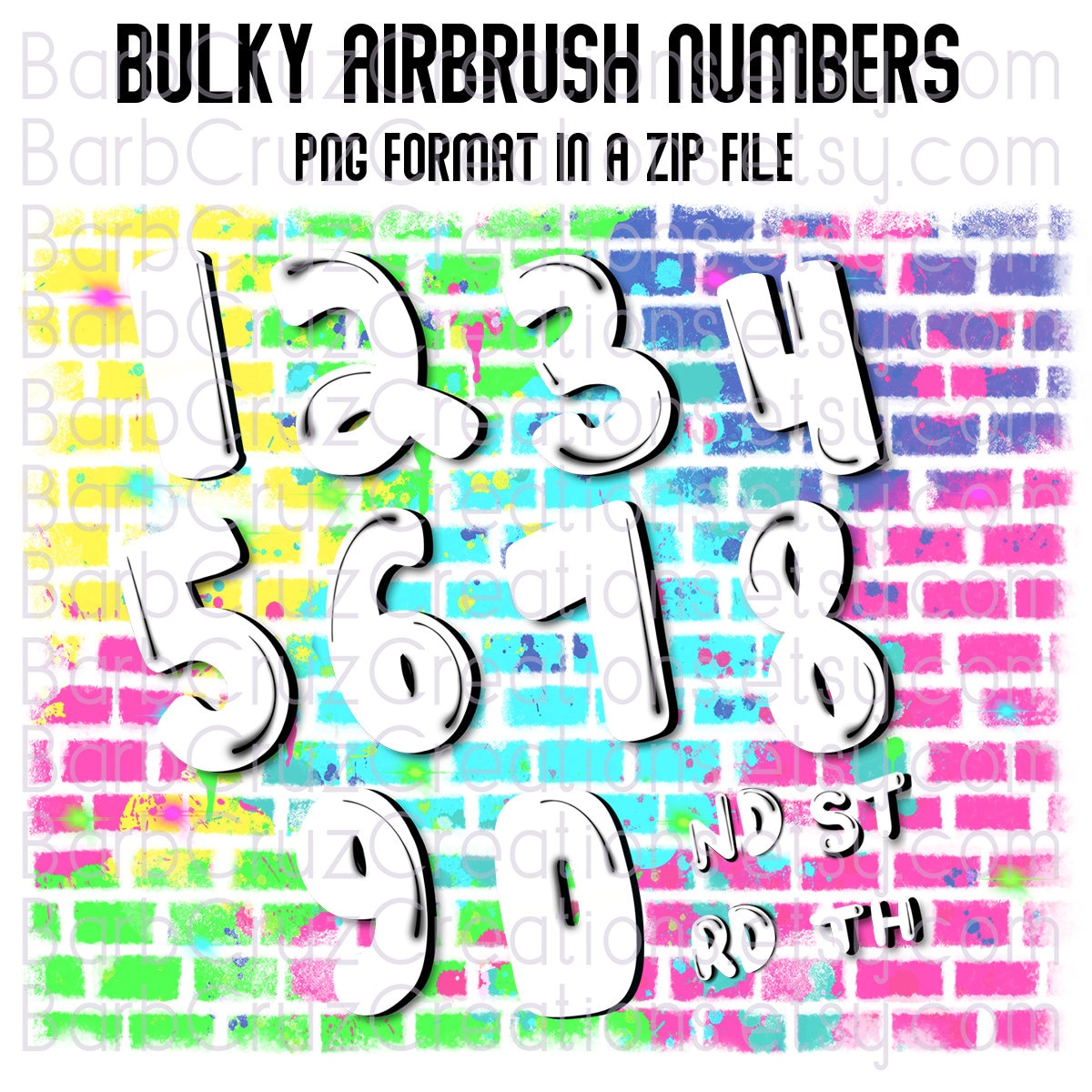
Graffiti numbers, Airbrush numbers great for DTF
*You are purchasing 0-9 slanted/tilted numbers as Zip files in png format
Add to a background use for airbrush customized invitation just add the birth year to a background.
Watercolor & Airbrush Images are transparent in some spots and can be layered to achieve darker or brighter images. Use your copy and paste feature for desired brightness.